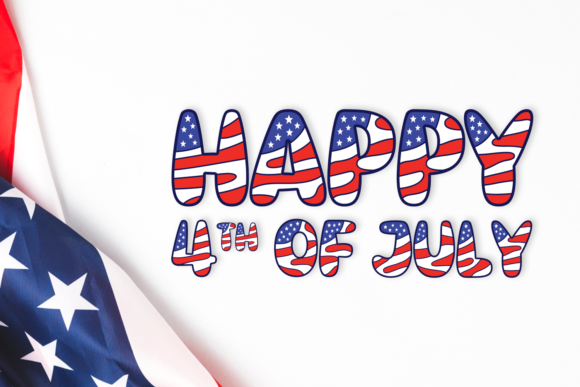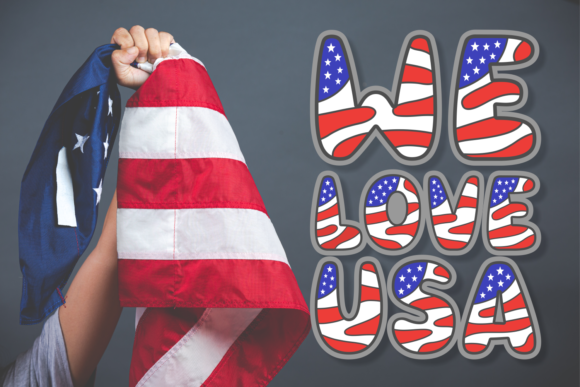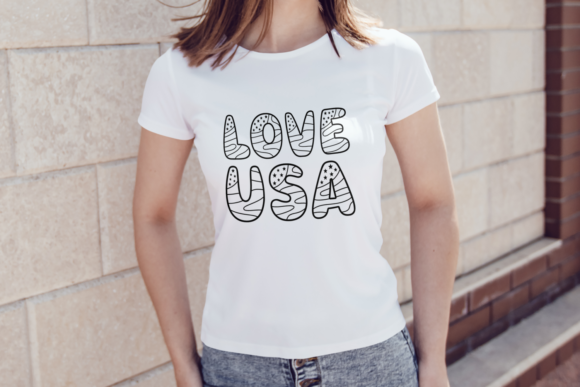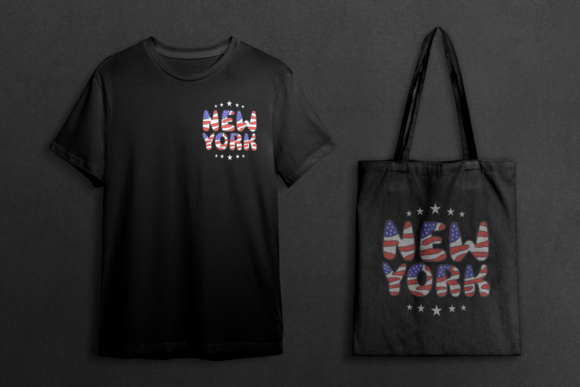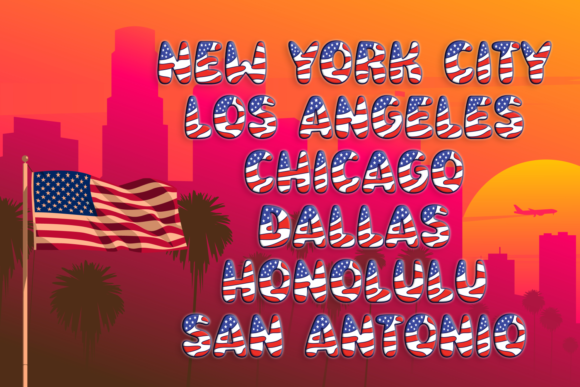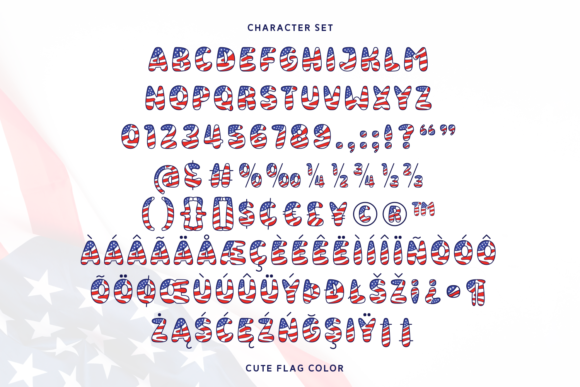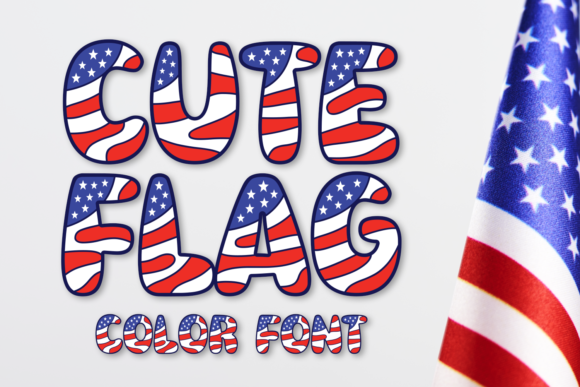
Celebrate American Patriotism with Cute Flag Font
Are you ready to add a touch of patriotism to your designs and crafts? Look no further than the Cute Flag Font, a splendid color font that’s perfect for celebrating the 4th of July and beyond! This vibrant font is designed to evoke a sense of American pride and is ideal for use on various projects, from BBQ packaging and home decor to picnic items and gifts.
What is Cute Flag Font?
Cute Flag Font is a unique and eye-catching color font that features a delightful, hand-crafted design. This font is an Opentype-SVG file, which means it’s a high-quality, scalable vector graphic that can be used in various design software. With its bold lines, bright colors, and playful style, Cute Flag Font is sure to add a pop of patriotism to any project.
Project Ideas for Cute Flag Font
The possibilities are endless when it comes to using Cute Flag Font. Here are a few project ideas to get you started:
- BBQ Packaging: Add a patriotic touch to your BBQ packaging with Cute Flag Font. Use it to create custom labels, stickers, or even a branded banner.
- Home Decor: Show off your American pride with Cute Flag Font on your home decor projects. Use it to create custom wall art, throw pillows, or even a patriotic centerpiece.
- Picnic Items: Make your picnic items stand out with Cute Flag Font. Use it to create custom banners, cupcake wrappers, or even a patriotic picnic basket.
- Gifts: Give your gifts a personal touch with Cute Flag Font. Use it to create custom gift tags, wrapping paper, or even a patriotic gift basket.
Why Choose Cute Flag Font?
So, why choose Cute Flag Font for your patriotic projects? Here are just a few reasons:
- Unique Design: Cute Flag Font features a one-of-a-kind design that’s sure to stand out.
- Patriotic Spirit: Cute Flag Font is designed to evoke a sense of American pride and patriotism, making it perfect for 4th of July celebrations and beyond.
Tips for Using Cute Flag Font
Here are a few tips to keep in mind when using Cute Flag Font:
- Experiment with Colors: While Cute Flag Font comes with a pre-designed color scheme, feel free to experiment with different colors to match your brand or project.
- Mix and Match: Combine Cute Flag Font with other fonts or graphics to create a unique look.
- Pay Attention to Size: Make sure to adjust the size of Cute Flag Font according to your project. This will ensure that the font remains clear and legible.
Cute Flag Font is a fantastic way to add a touch of patriotism to your designs and crafts. With its unique design, high-quality format, and ease of use, this font is perfect for celebrating the 4th of July and beyond. So, get creative and show off your American pride with Cute Flag Font!